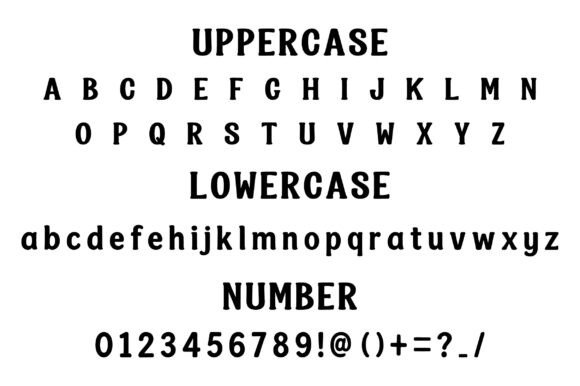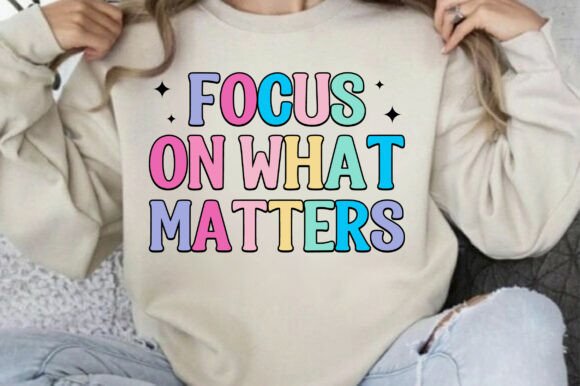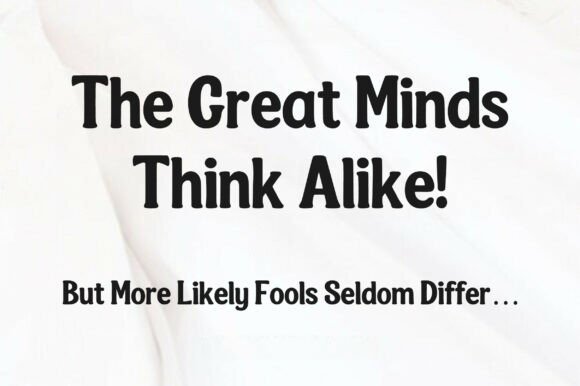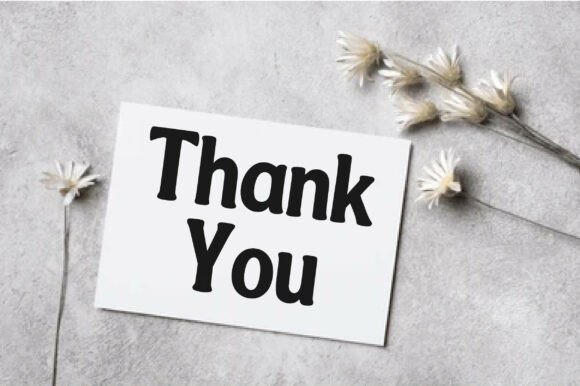
Introducing Happy Rounded: The Ultimate Font for Playful Designs
Are you tired of using the same old fonts for your designs? Look no further! Happy Rounded is a delightful display font that is sure to bring a smile to your face. With its smooth curves and soft, rounded edges, this font is perfect for creating playful and cheerful designs that are sure to capture the attention of your audience.
The Perfect Font for Kids’ Designs and Crafts
Happy Rounded is a font that is specifically designed with kids in mind. Its bold, friendly, and easy-to-read letters make it perfect for use in kids’ designs, stickers, crafts, and other creative projects. Whether you’re a parent, teacher, or designer, this font is sure to be a hit with kids of all ages.
Adding a Touch of Joy to Your Designs
One of the things that sets Happy Rounded apart from other fonts is its ability to add a fun and joyful personality to your designs. The font’s playful look and feel make it perfect for use in a variety of creative projects, from T-shirts and labels to posters and digital graphics. With Happy Rounded, you can add a bright and happy touch to every design, making it sure to stand out from the crowd.
Key Features of Happy Rounded
- Cute and Cheerful Design: Happy Rounded is a display font that is designed to be fun and playful. Its smooth curves and soft, rounded edges give it a unique and cheerful look that is sure to delight.
- Bold and Easy to Read: The letters in Happy Rounded are bold and easy to read, making it perfect for use in a variety of designs, from large posters to small stickers.
- Perfect for Kids’ Designs: Happy Rounded is a font that is specifically designed with kids in mind. Its playful look and feel make it perfect for use in kids’ designs, crafts, and other creative projects.
- Versatile: Happy Rounded is a versatile font that can be used in a variety of creative projects, from T-shirts and labels to posters and digital graphics.
How to Use Happy Rounded in Your Designs
Using Happy Rounded in your designs is easy. Here are a few tips to get you started:
- Pair it with Other Fonts: Happy Rounded can be paired with other fonts to create a unique and interesting look. Try pairing it with a sans-serif font for a fun and playful look.
- Use it in Kids’ Designs: Happy Rounded is perfect for use in kids’ designs, such as stickers, crafts, and other creative projects.
- Add Color: Happy Rounded looks great with bright and bold colors. Try adding a pop of color to your design to make it stand out.
Why Designers and Crafters Love Happy Rounded
Happy Rounded is a font that is loved by designers and crafters alike. Here are a few reasons why:
- Easy to Use: Happy Rounded is a font that is easy to use, even for those who are new to design.
- Versatile: Happy Rounded can be used in a variety of creative projects, making it a great addition to any designer’s toolkit.
- Fun and Playful: Happy Rounded is a font that is fun and playful, making it perfect for use in designs that need to capture the attention of kids and adults alike.
In conclusion, Happy Rounded is a delightful display font that is perfect for creating playful and cheerful designs. With its smooth curves and soft, rounded edges, this font is sure to add a bright and happy touch to every design. Whether you’re a designer, crafter, or parent, Happy Rounded is a font that is sure to bring a smile to your face. So why wait? Download Happy Rounded today and start creating fun and playful designs that are sure to capture the attention of your audience!